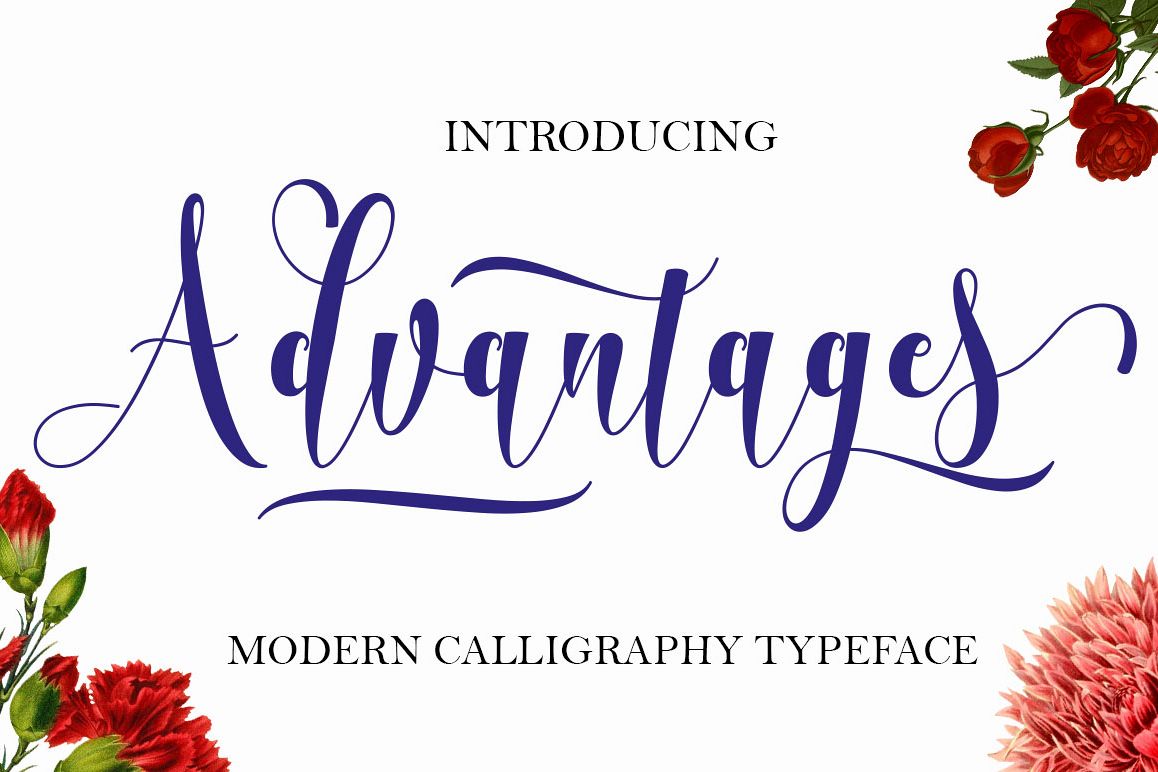
Advantages
Advantages-Regular
Advantages Modern Calligraphy. This font was designed by handwriting, and it has a modern and unique forms of calligraphy, the writing style is very natural.
The Features of this fonts is;
• Standart ligatures
• Contextual Alternates
• Stylistic sets
• swash
Can be used for various purposes.such as headings, logos, wedding invitation, t-shirt, letterhead, signage, lable, news, posters, badges etc. To enable the OpenType Stylistic alternates, you need a program that supports OpenType features such as Adobe Illustrator CS, Adobe Indesign & CorelDraw X6-X7.